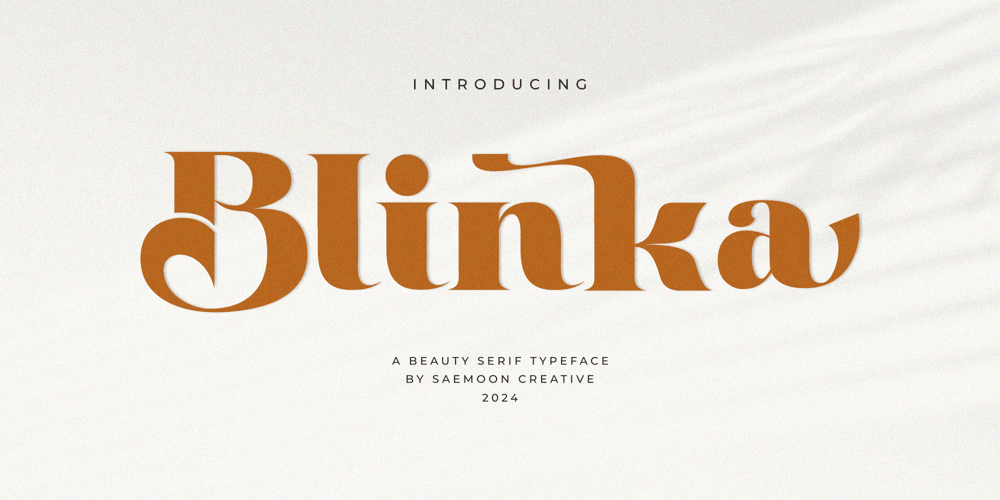
Blinka
Blinka font
Blinka Font Family was designed by Sapto Susilo and published by Saemoon Creative. Blinka contains 1 styles and family package options. Blinka is a charming and elegant serif typeface designed to add a touch of sophistication to various design projects. With its beautiful characteristics, Blinka conveys a classic yet contemporary impression.Its smooth serif lines and balanced proportions exude luxury and professionalism. Each letter is meticulously crafted, showcasing delicate details and proportional shapes.This font is well-suited for use in logos, headlines, promotional materials, and other publications that require a touch of class and elegance. With its clear forms, Blinka is easy to read and ensures your message is conveyed clearly and effectively.Blinka comes in various styles and weights, providing flexibility for use in a variety of design needs. With its charming character, Blinka brings a special and beautiful atmosphere to every design project you create.